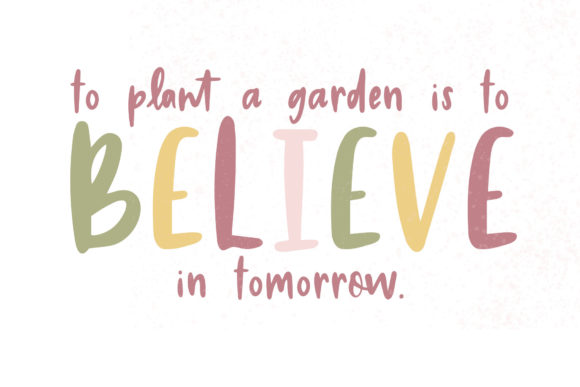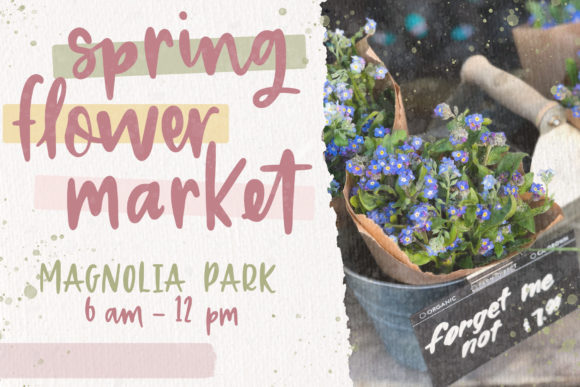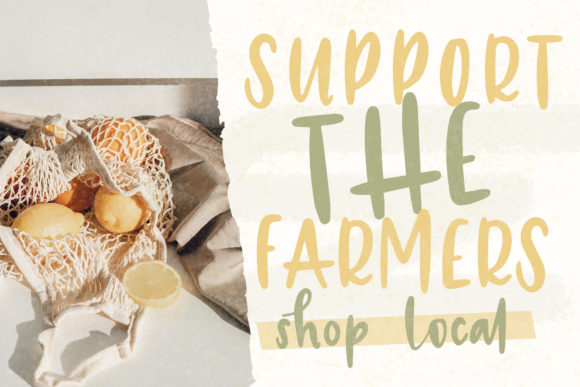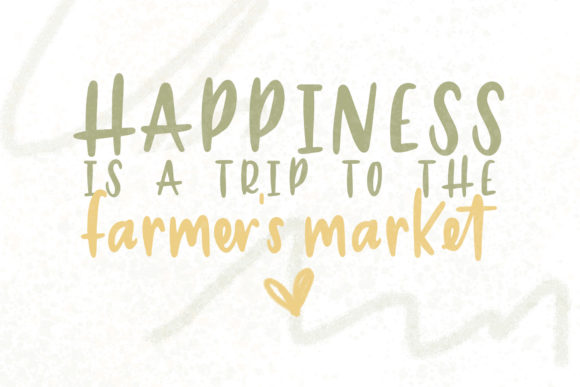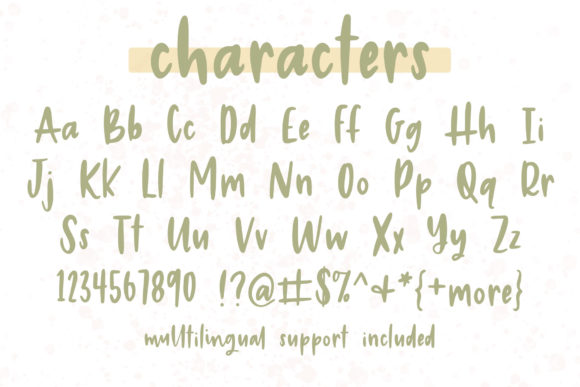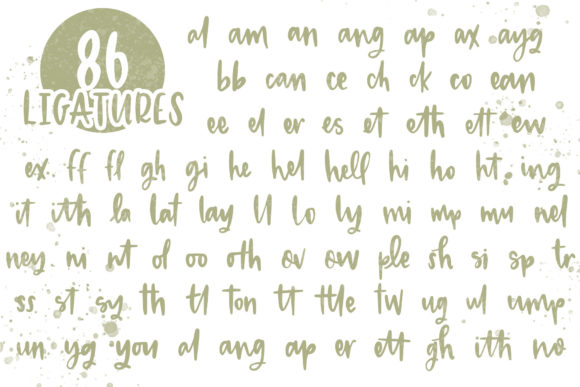
Introducing Farmer’s Market Font: A Charming Handwritten Typeface for Creative Projects
Are you a designer, crafter, or DIY enthusiast looking for a unique and friendly font to add a personal touch to your creative projects? Look no further than Farmer’s Market Font, a lovely handwritten typeface that is sure to capture the hearts of crafty individuals and businesses alike. With its uniquely designed characters and approachable vibe, this font is perfect for a wide range of creative ideas, from branding and packaging to signage and digital media.
What Makes Farmer’s Market Font So Special?
Farmer’s Market Font is a one-of-a-kind handwritten font that boasts a distinctive and charming aesthetic. Its characters are carefully crafted to evoke a sense of warmth, friendliness, and approachability, making it an ideal choice for brands and businesses that want to convey a sense of personality and authenticity. Whether you’re creating a logo, label, or social media graphic, this font is sure to add a touch of whimsy and charm to your design.
Key Features of Farmer’s Market Font
- Unique Character Design: Each character in Farmer’s Market Font is uniquely designed to create a distinctive and recognizable aesthetic.
- Handwritten Style: This font features a beautiful, handwritten style that adds a personal touch to any design.
- Friendliness and Approachability: The font’s friendly vibe makes it perfect for brands and businesses that want to convey a sense of warmth and approachability.
- Versatility: Farmer’s Market Font is suitable for a wide range of creative projects, from digital media to print materials.
Perfect for Creative Crafty Ideas
Farmer’s Market Font is a versatile typeface that can be used for a wide range of creative crafty ideas, including:
- Branding and Packaging: Use this font to create eye-catching labels, packaging, and branding materials that stand out from the crowd.
- Signage and Displays: Create beautiful signs, banners, and displays that showcase your products or services in a unique and charming way.
- Digital Media: Use Farmer’s Market Font to create engaging social media graphics, blog posts, and website content that resonates with your audience.
- Crafting and DIY Projects: Add a personal touch to your crafting and DIY projects, such as handmade cards, gift tags, and scrapbooking pages.
Tips for Using Farmer’s Market Font
To get the most out of Farmer’s Market Font, here are a few tips to keep in mind:
- Use it in combination with other fonts: Pair Farmer’s Market Font with other fonts to create a unique and visually appealing typography.
- Experiment with colors and textures: Add depth and interest to your design by experimenting with different colors and textures.
- Keep it simple: Don’t be afraid to keep your design simple and clean, allowing the font to take center stage.
Farmer’s Market Font is a charming handwritten typeface that is perfect for designers, crafters, and DIY enthusiasts looking to add a personal touch to their creative projects. With its uniquely designed characters and friendly vibe, this font is sure to capture the hearts of anyone looking for a distinctive and approachable aesthetic. Whether you’re creating branding materials, signage, or digital media, Farmer’s Market Font is a versatile typeface that is sure to inspire your creativity.